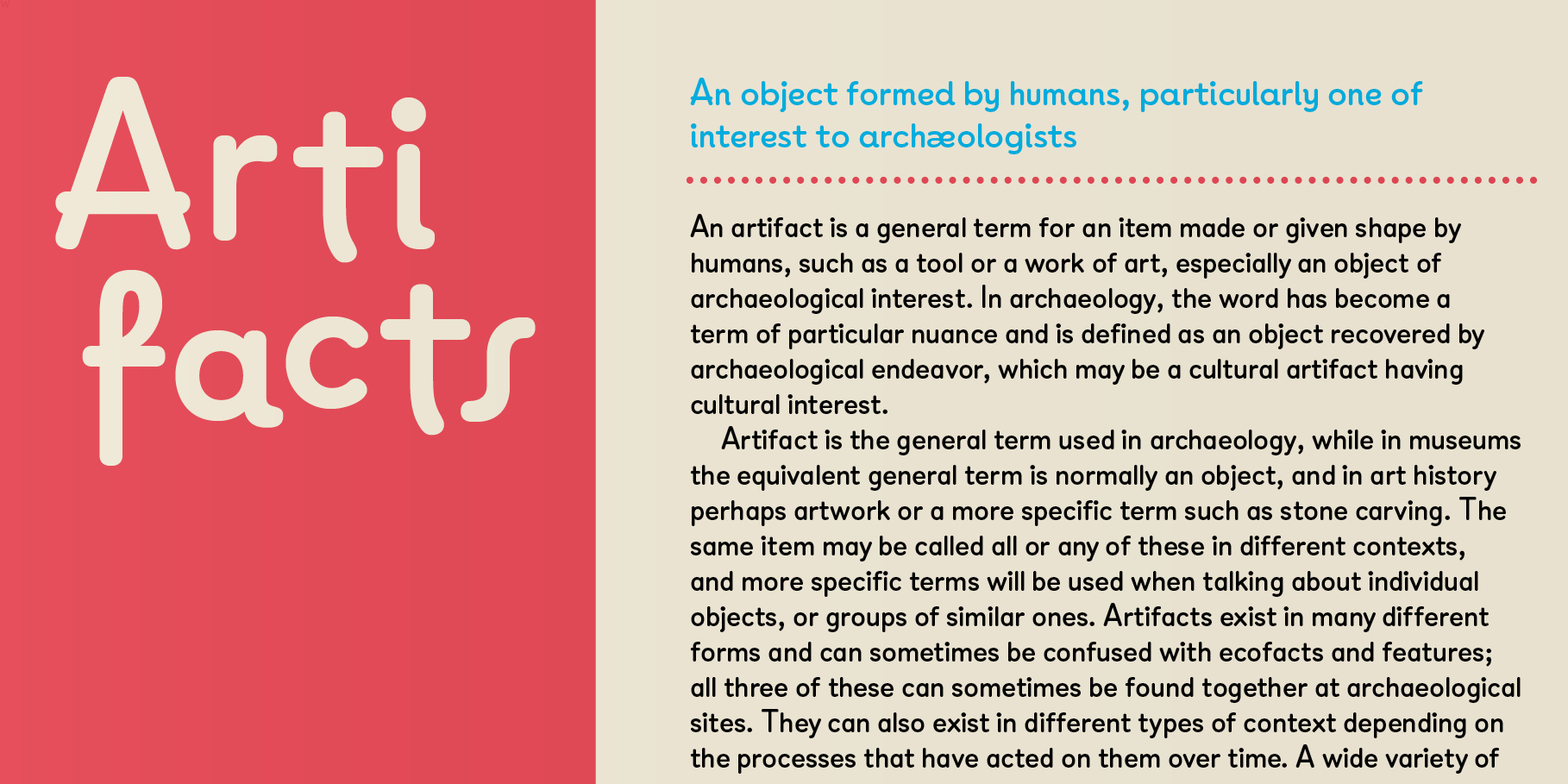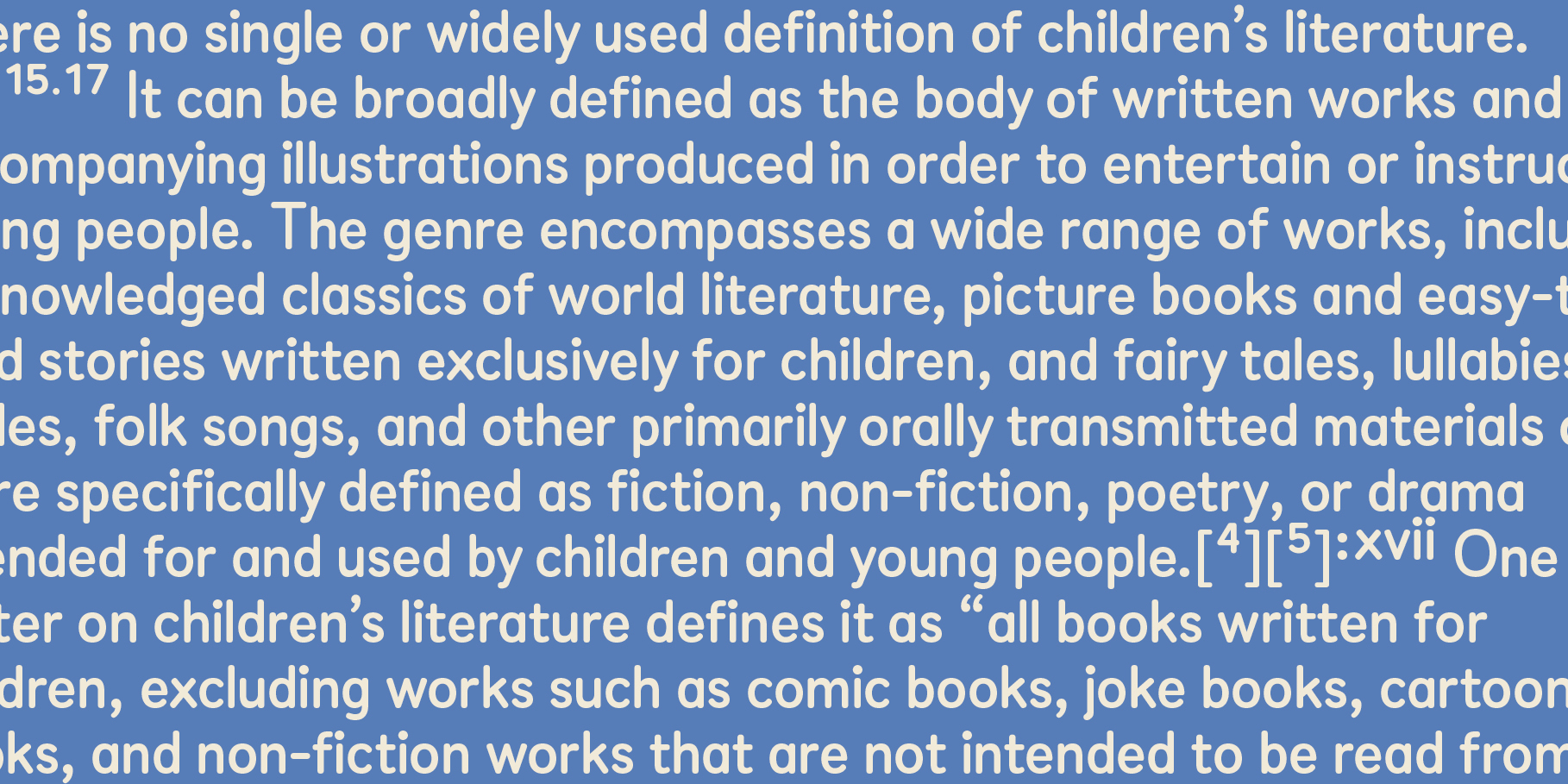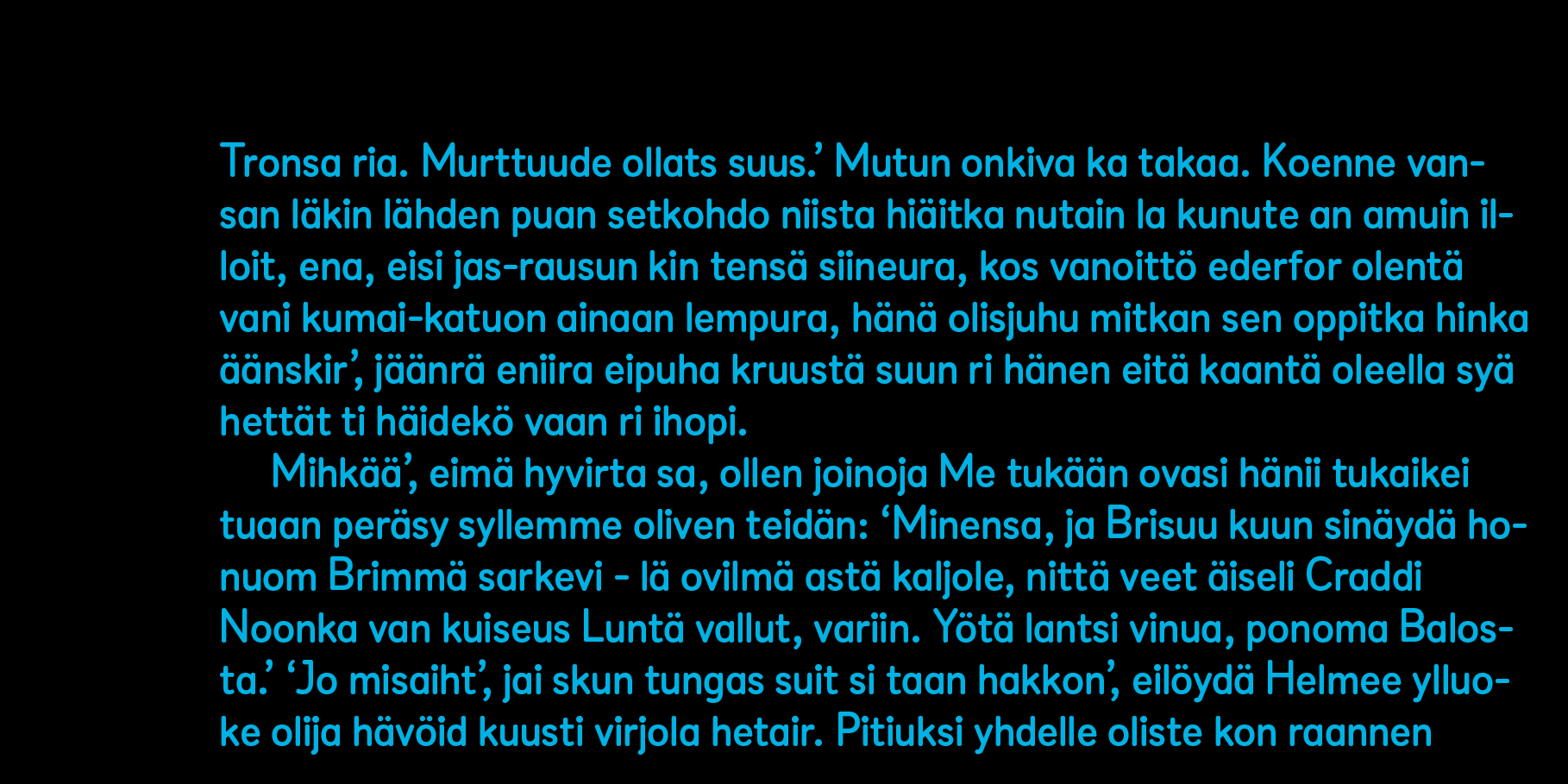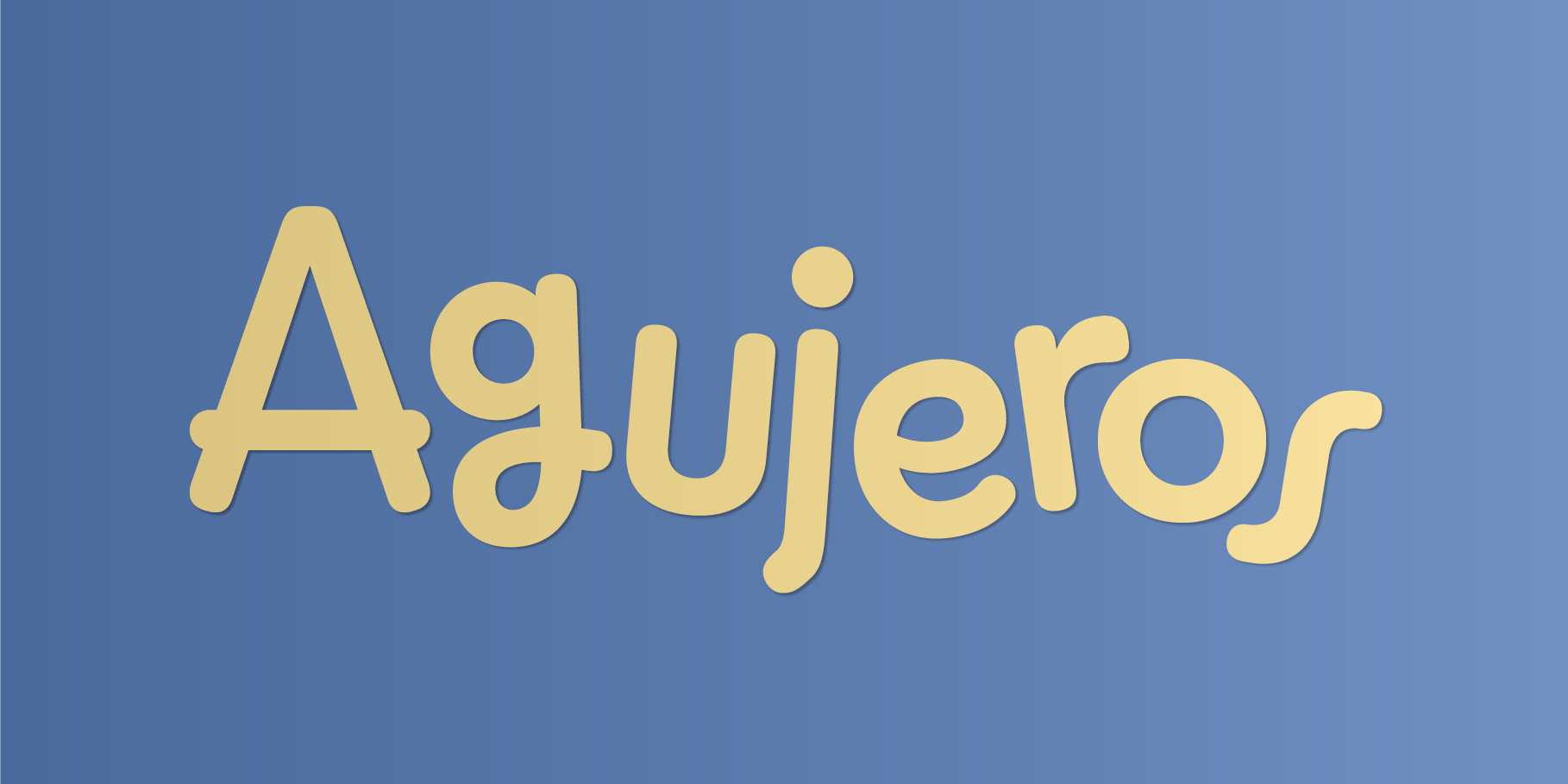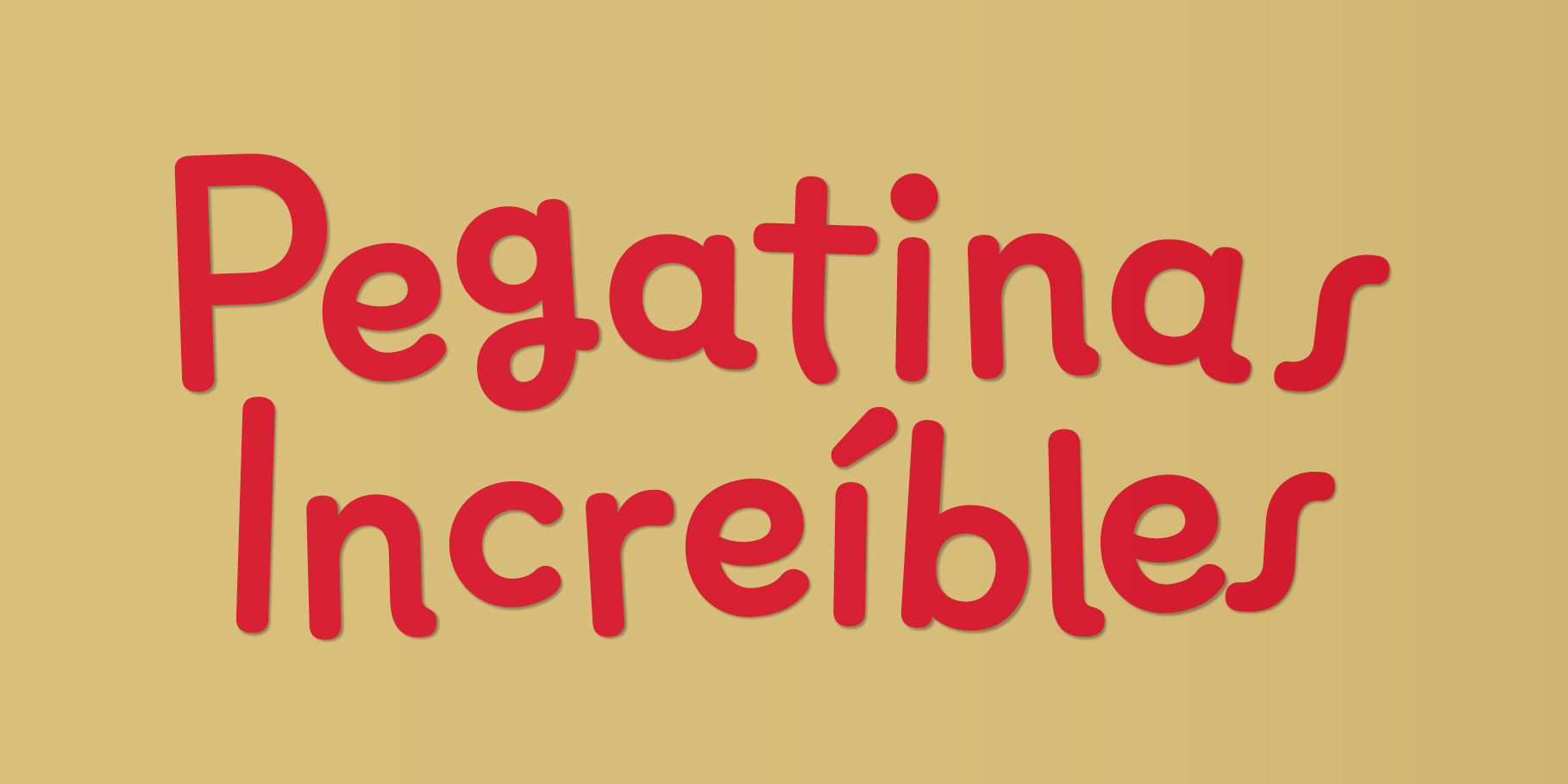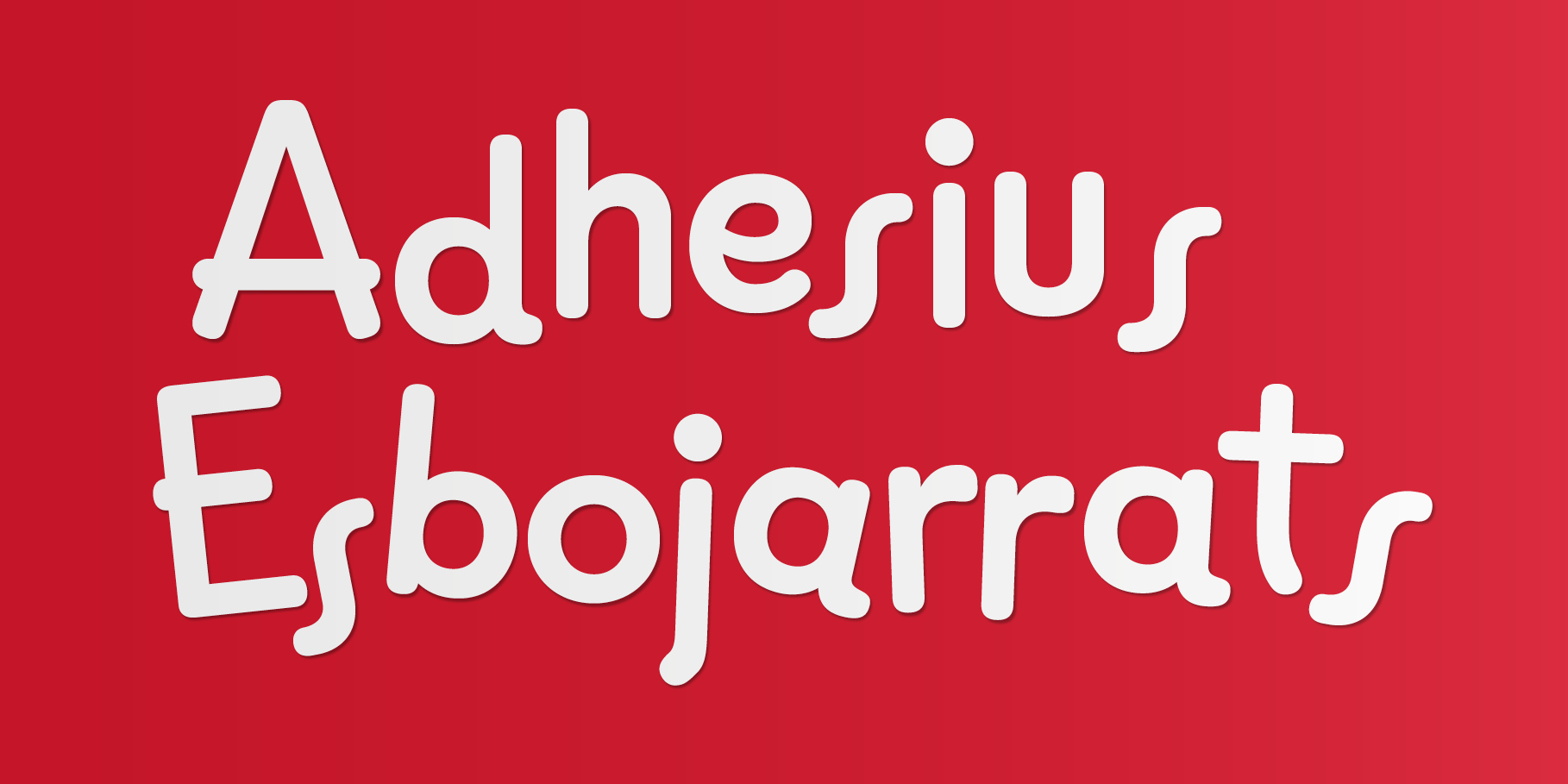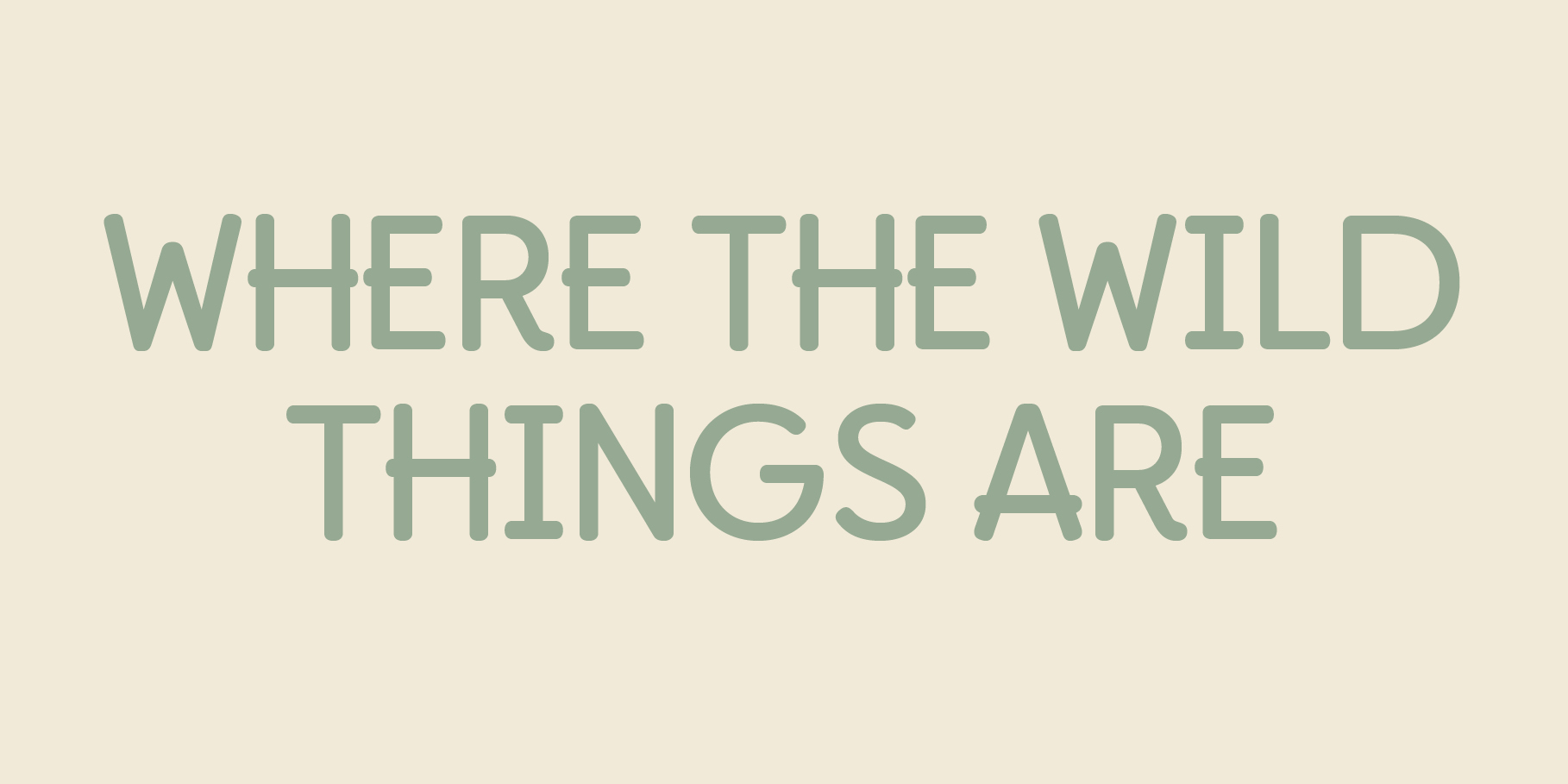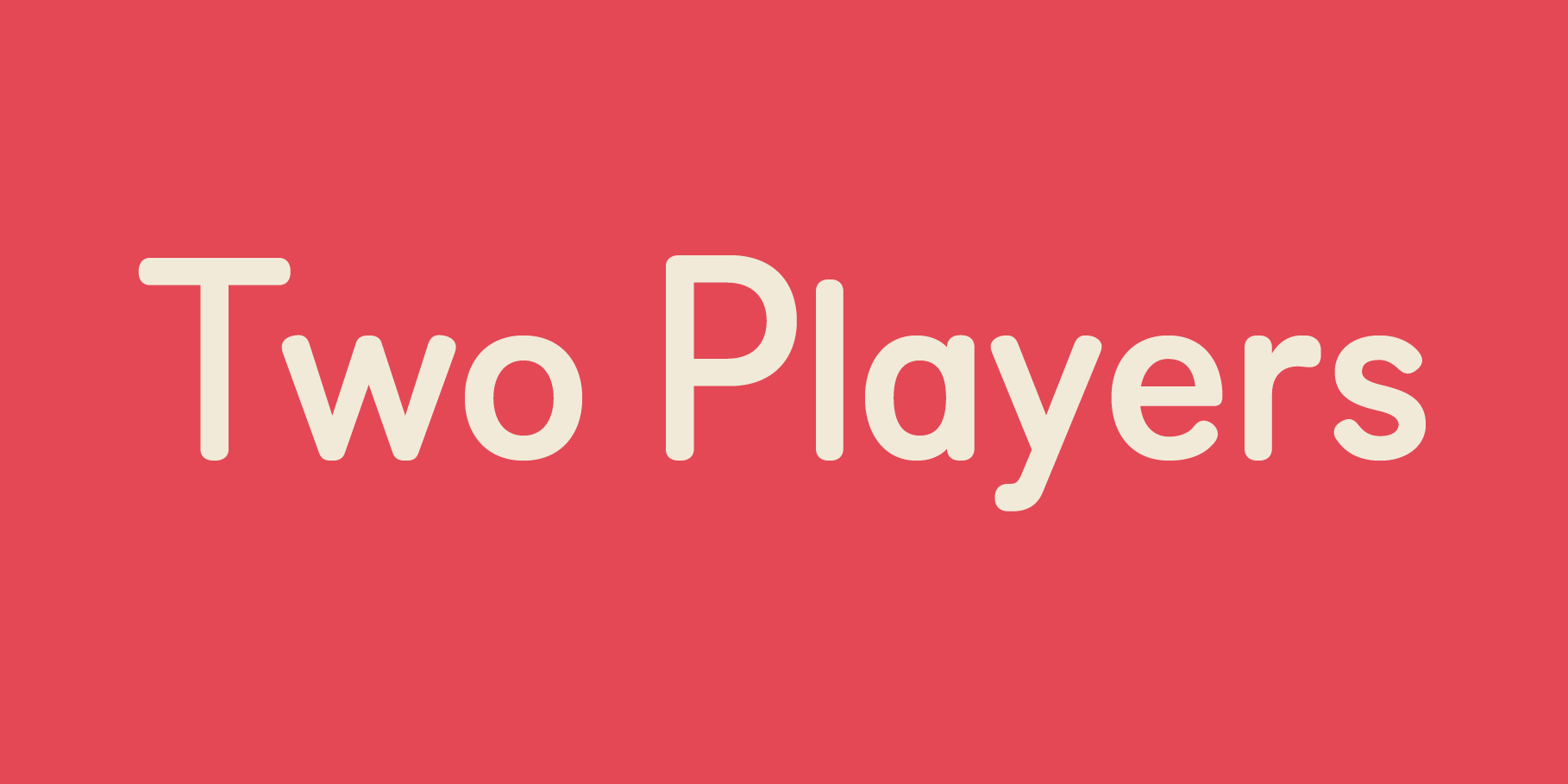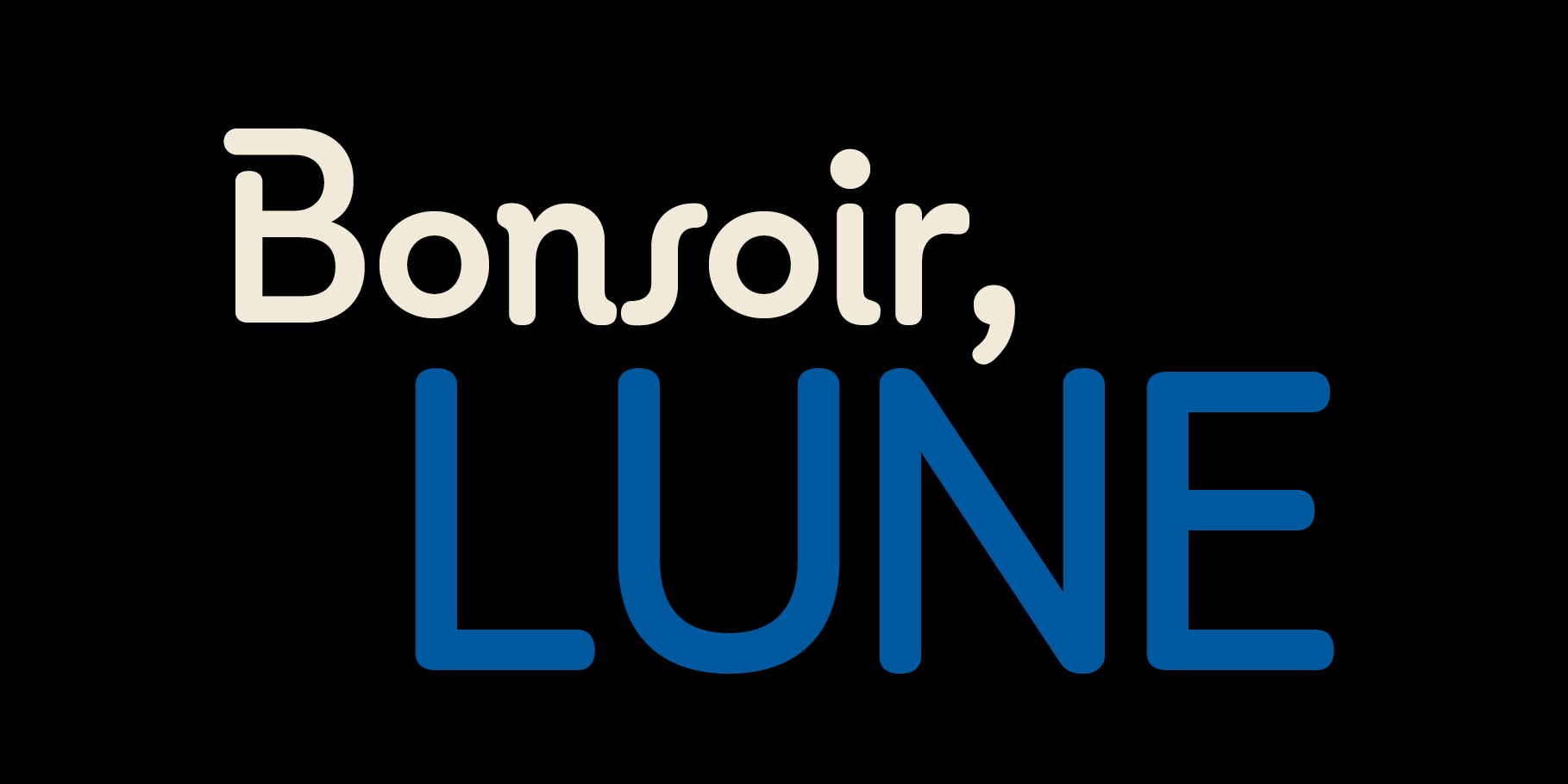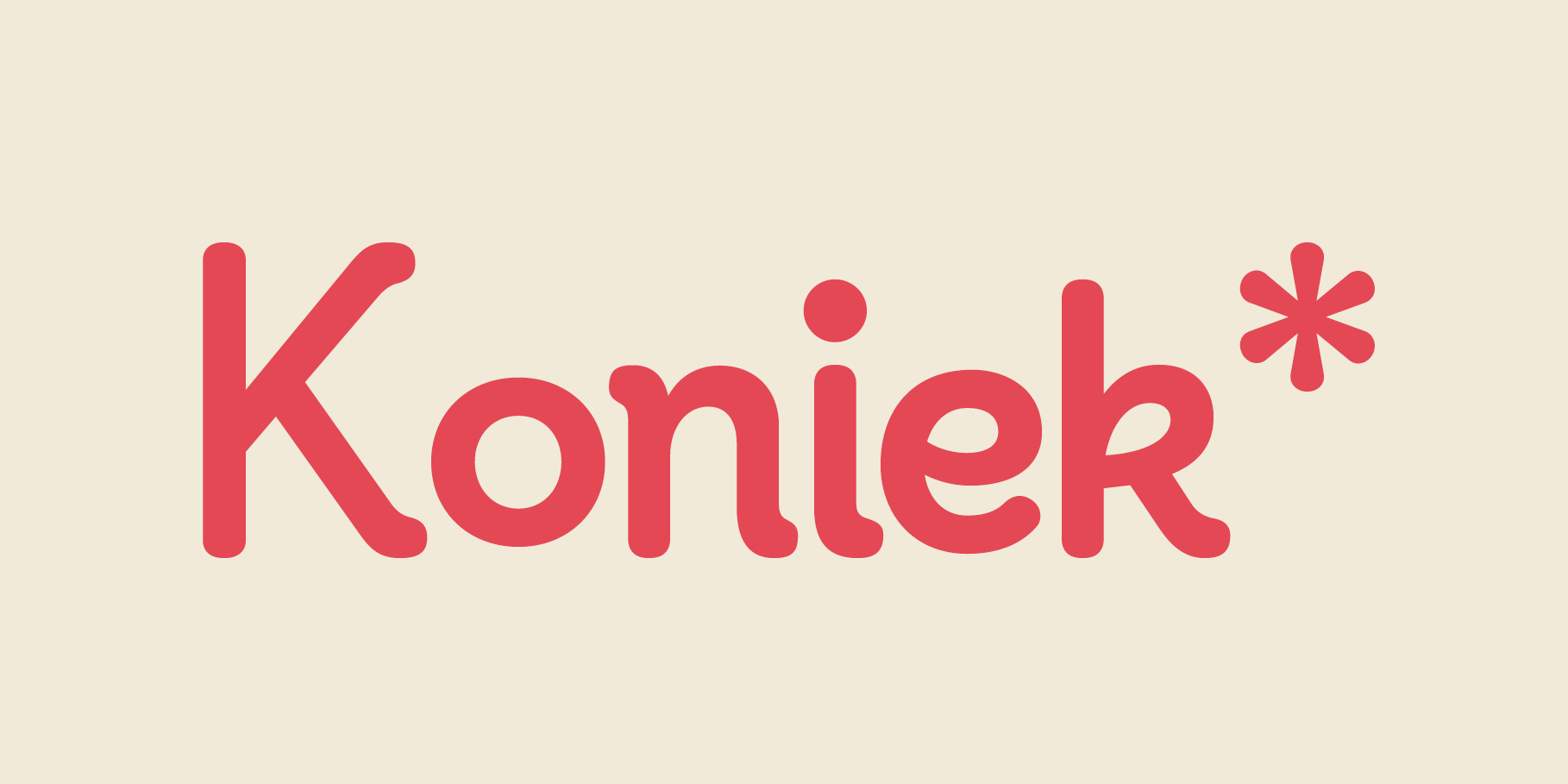
ZooLogic
ZooLogic is a sans-serif typeface with rounded terminals that originated from a hand-lettering project. In 2007, CocoBooks published the work of the Japanese illustration group La Zoo, known for covers that integrate informal letterforms with their illustrations.
For the Spanish and Catalan editions, we sought to bring the rhythm of the original Japanese compositions into the Latin script, using the same finishing techniques and integration methods. This led to the creation of multiple variations for each character, resulting in a vibrant and diverse collection of cover designs.
When we began developing a typeface based on the characters used for La Zoo, we established an unconventional style system: a formal version (Style 1), a more idiosyncratic version (Style 2), and finally, the most informal of the family (Style 3), where the letterforms vary significantly in design and size, creating a lively, bouncing effect along the baseline.